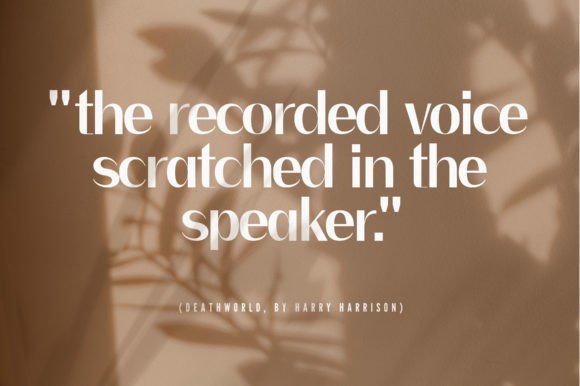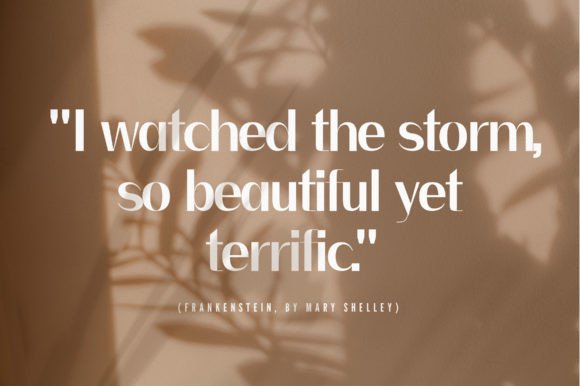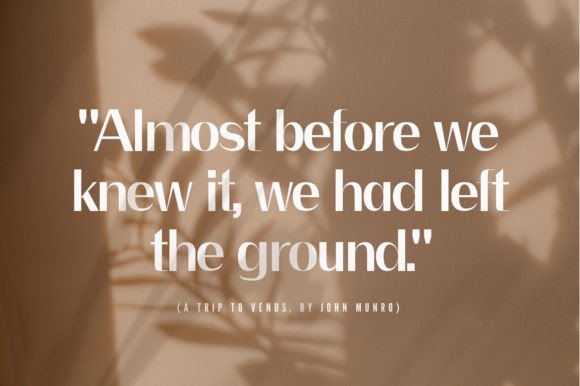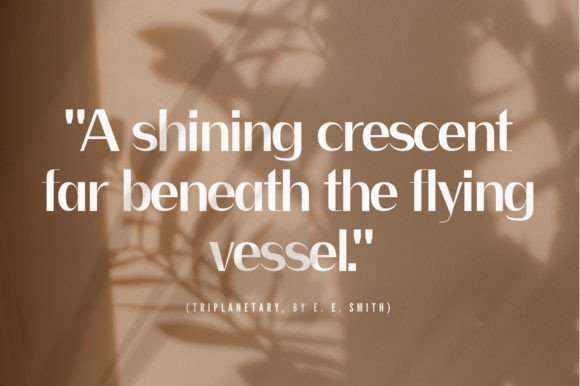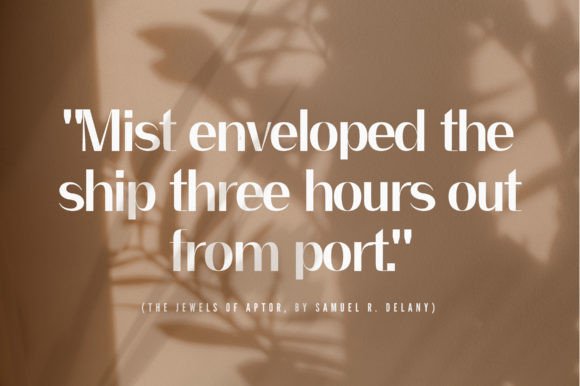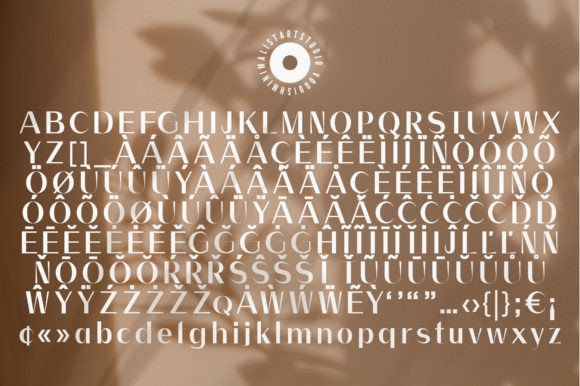
The Elusive Perfect Font: My Encounter with Angram
I’ll never forget the frustration of working on a luxury branding project, only to hit a roadblock: finding the perfect font. My client wanted something that exuded elegance, sophistication, and style. I scoured the internet, tried out countless typefaces, but nothing seemed to fit the bill. That was until I stumbled upon Angram Font. ✨
As I explored its refined, chic, and stylish sans serif design, I knew I had found the one. Angram perfectly suited the project’s requirements, and my client’s expectations were exceeded. In this article, I’ll share my experience with Angram Font, its features, and how to make the most of it in various design platforms.
An Honest Review of Angram Font
• ✨ Refined and elegant design: Angram’s sans serif design is perfect for luxury goods, fashion, and cosmetics projects.
• ✅ High versatility: It works well in various design contexts, from packaging to magazines.
• 💯 Excellent legibility: Angram’s clean lines and precise curves ensure that your text is always easy to read.
• 🎨 OpenType features: Angram offers a range of OpenType features, including stylistic alternates and glyphs, to give your designs an extra creative boost.
While Angram Font is an excellent choice, there are a few minor considerations to keep in mind: 🤔
• ⚠️ Limited use in body text: Due to its elegant design, Angram might not be the best choice for lengthy body text. It’s better suited for headings, titles, and short paragraphs.
• ⚠️ Glyph compatibility: Some glyphs or special characters might not work seamlessly with all design platforms or software.
The Story Behind Angram Font
Angram Font was designed with the intention of creating a refined, elegant typeface that would cater to the needs of luxury brands and designers. Its creator aimed to craft a font that exuded sophistication, style, and poise. 💡
While the actual story behind Angram’s creation might be fictional, its design reflects a deep understanding of typography and the needs of modern designers.
Q: What is Angram Font best suited for?
A: Angram Font is ideal for luxury goods, fashion, cosmetics, perfume, jewelry, and magazine designs, where elegance and sophistication are paramount.
Q: Does Angram Font support OpenType features?
A: Yes, Angram Font offers a range of OpenType features, including stylistic alternates and glyphs, to enhance your designs.